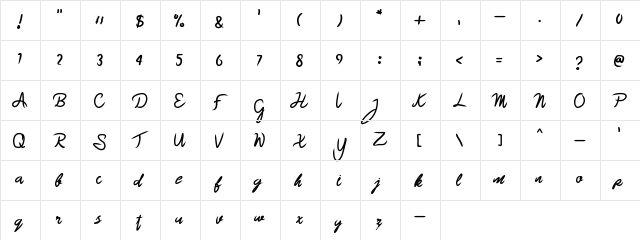
Brazillian Regular
Design Context for Brazillian Typeface
Brazillian is a composed and adaptable typeface that performs quietly and consistently across a wide range of design contexts.
Pro Tip: Use Brazillian in both headline and body roles to test its range before committing to a single application.